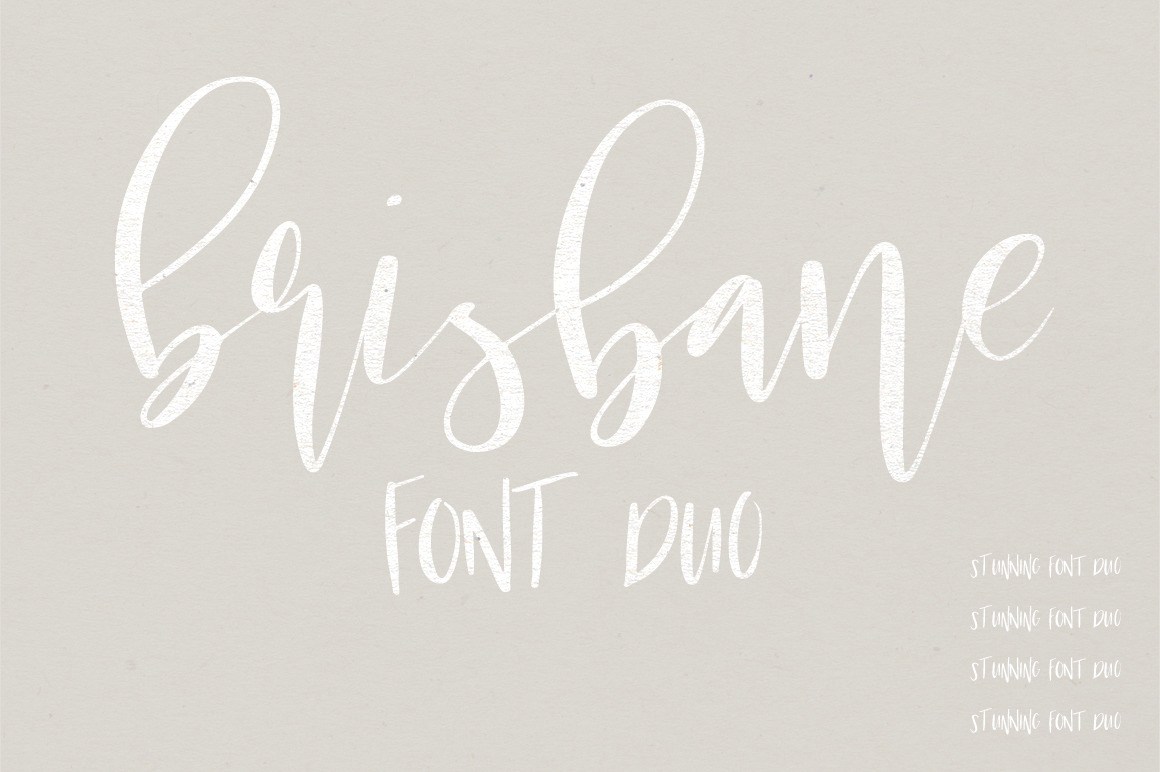
Brisbane | A Scripty Font Duo
Brisbane is a gorgeous and fun font duo that is perfect for wedding invitations, baby shower invites, logos, and so much more! It looks stunning paired with sans serif fonts like Gotham or Proxima Nova, or on its own as a big beautiful header. Have fun with this set!
Includes
- Brisbane Script (an all-lowercase script with alternates via uppercase letters)
- Brisbane Regular (an all-uppercase script with alternates via lowercase letters)
- Numbers + punctuation
- Non-English characters